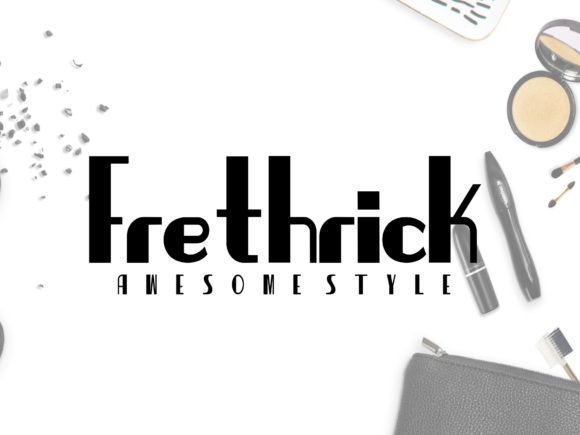
Journey into the realm of typography with Frethrick Font, a sans serif masterpiece that will redefine your creative horizons. This font family, brought to you by artnivora.std, is not just a collection of letters; it's an expression of individuality, a reflection of your unique style.
With its clean lines, sharp angles, and contemporary flair, Frethrick beckons you to explore new avenues of design. Its letterforms dance across the page, each character a testament to the beauty of simplicity. The font's subtle curves and precise strokes evoke a sense of sophistication and elegance, inviting you to create designs that are both timeless and captivating.
Unleash your creativity and let Frethrick guide you through a world of possibilities. Whether you're crafting logos, branding materials, website designs, or social media graphics, this font will elevate your work to new heights of distinction. Its versatility knows no bounds, adapting seamlessly to a myriad of design aesthetics, from minimalist to bold and experimental.
Imagine the impact your designs will make when adorned with Frethrick's confident strokes. Your words will command attention, your messages will resonate, and your brand will leave an indelible mark on the minds of your audience. Frethrick is more than just a font; it's a tool that empowers you to make a statement, to communicate with clarity and impact, and to leave your creative mark on the world.
Join the ranks of discerning designers who have discovered the transformative power of Frethrick. Let your creativity soar, let your designs speak volumes, and let Frethrick be your trusted companion on this extraordinary journey of self-expression. Embrace the beauty of typography and unlock the full potential of your creative vision with Frethrick Font.